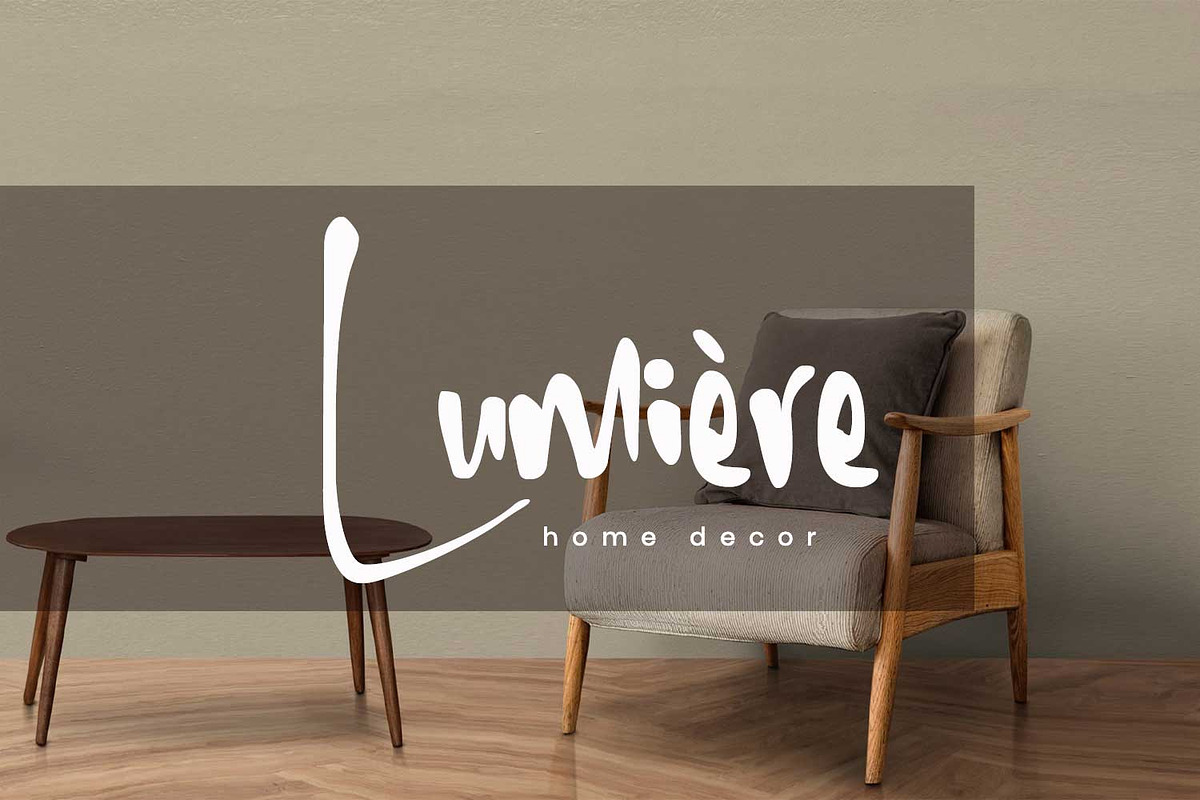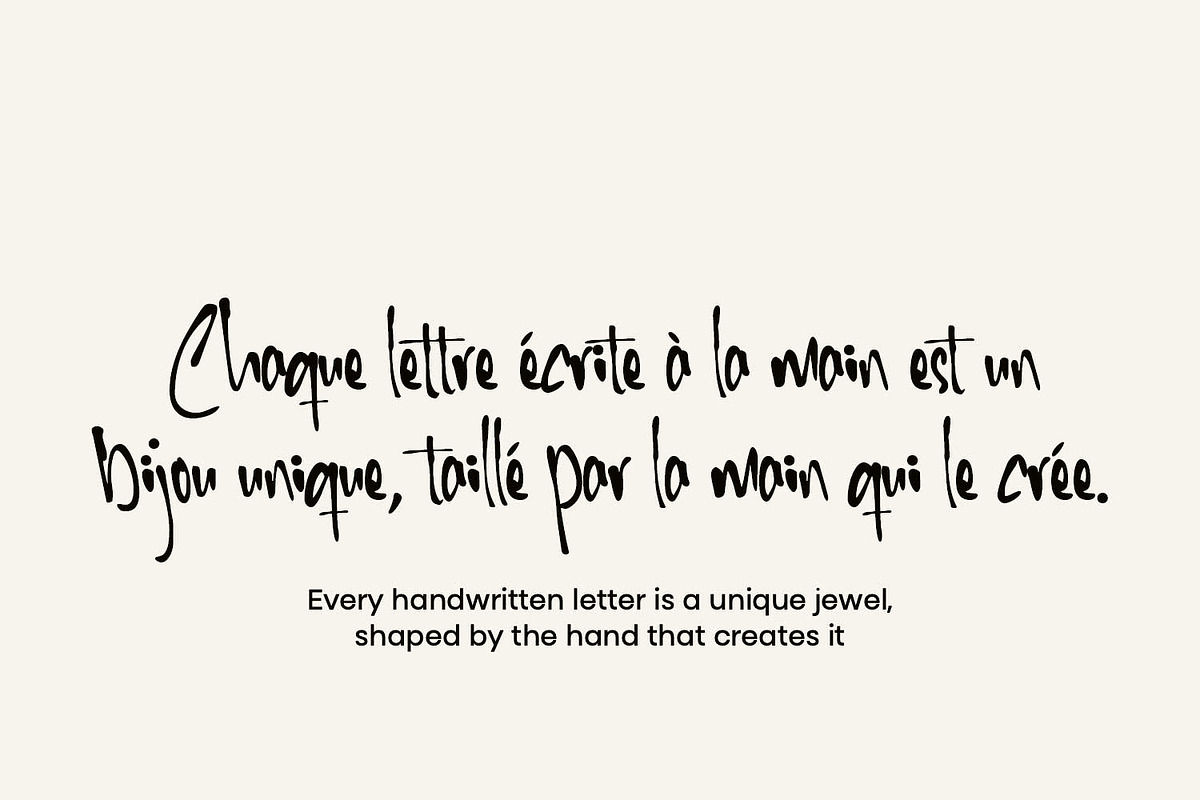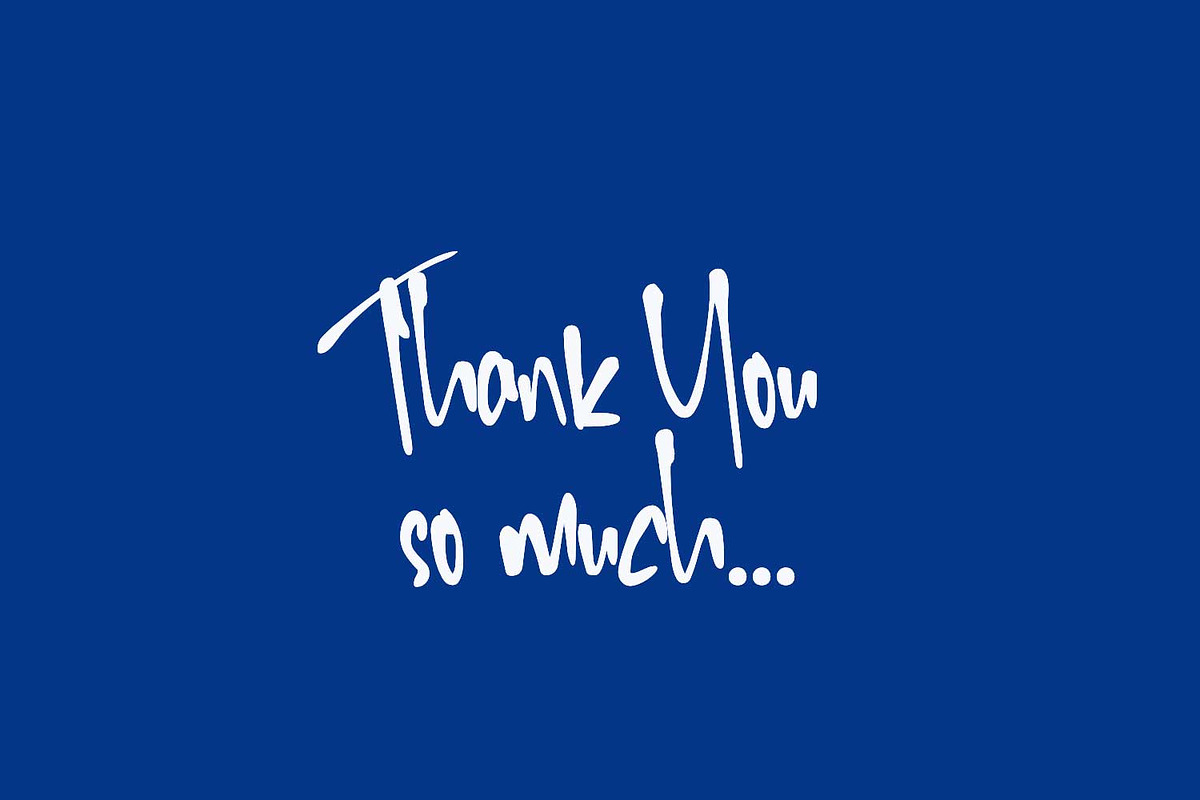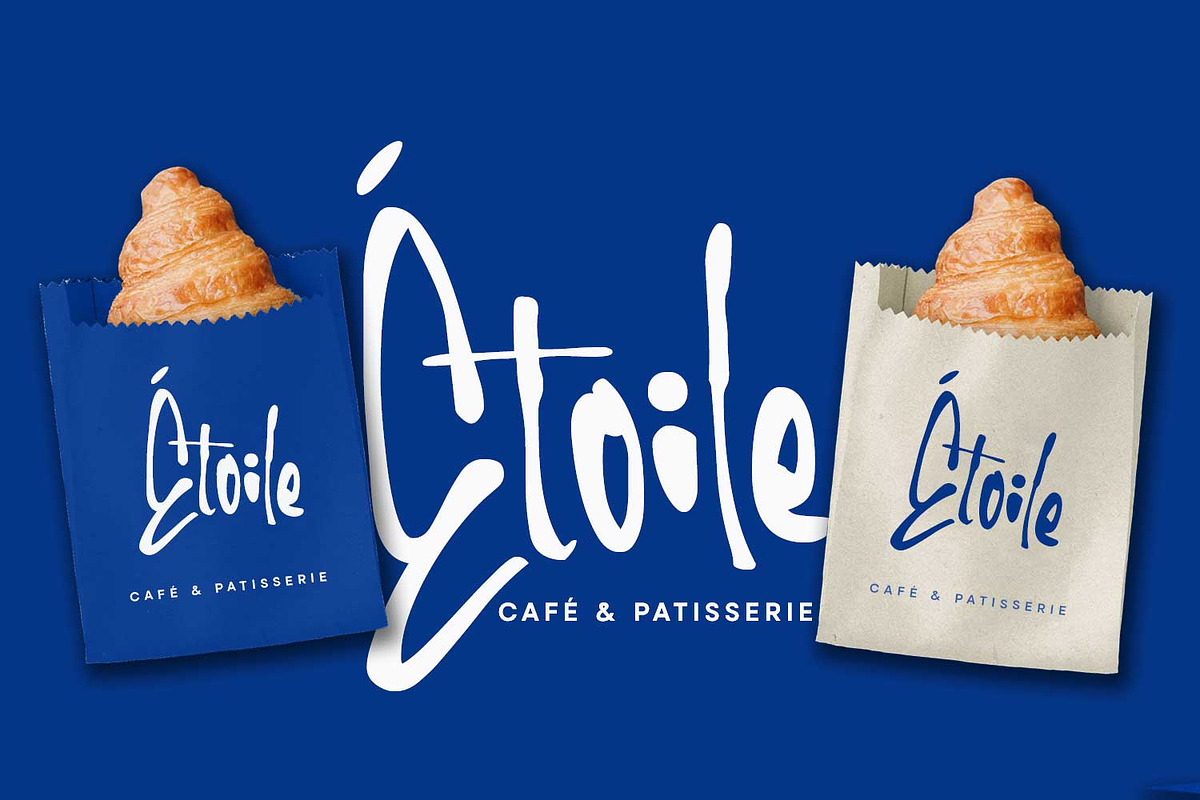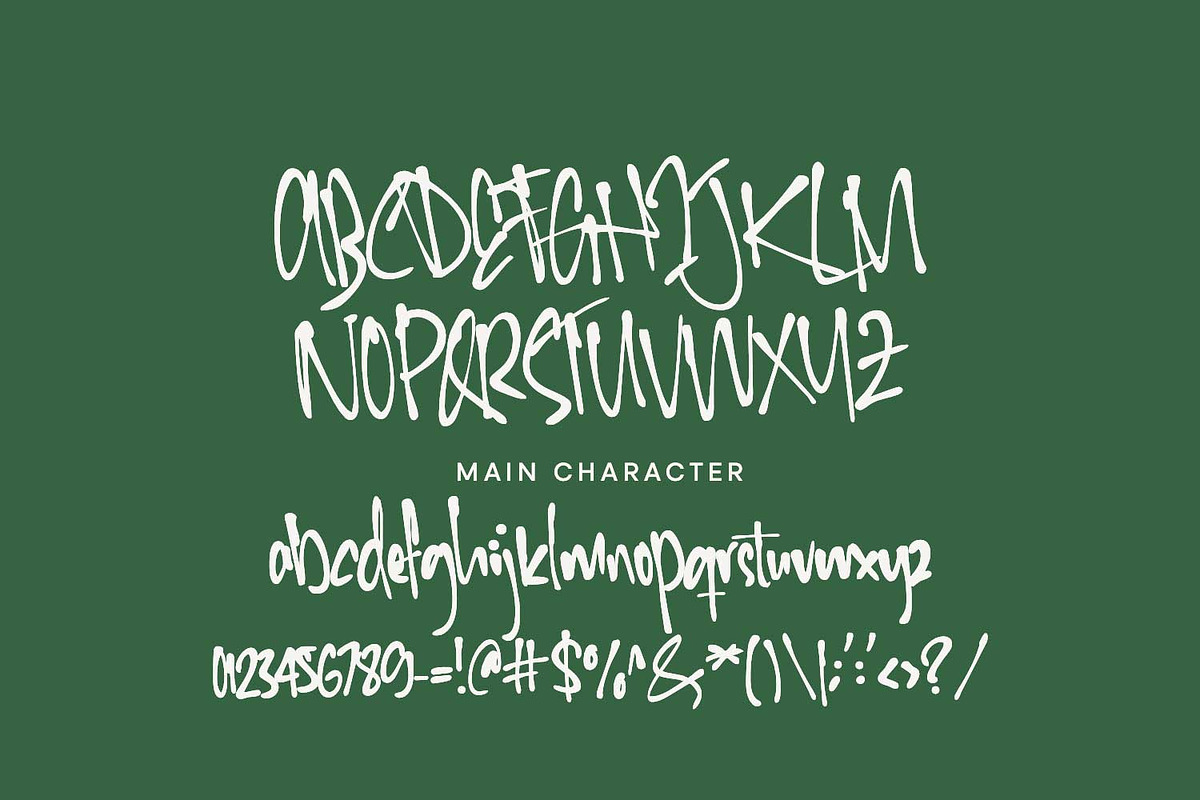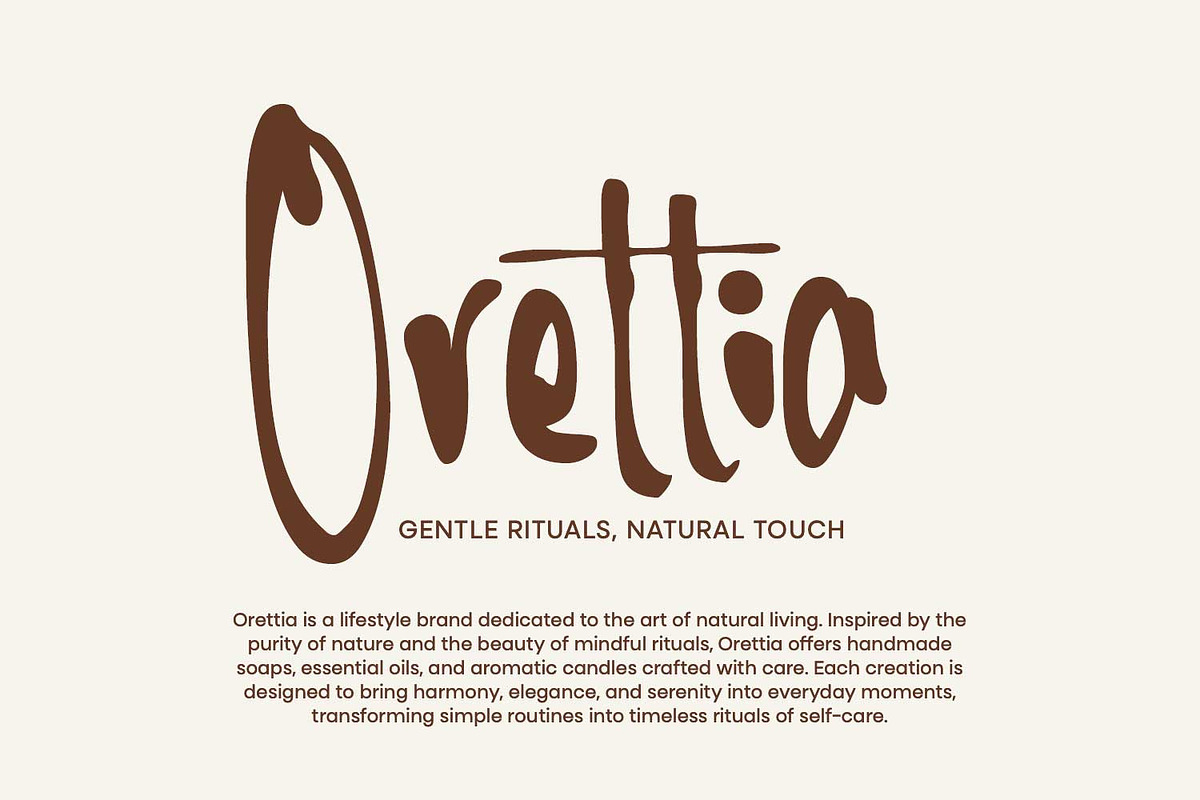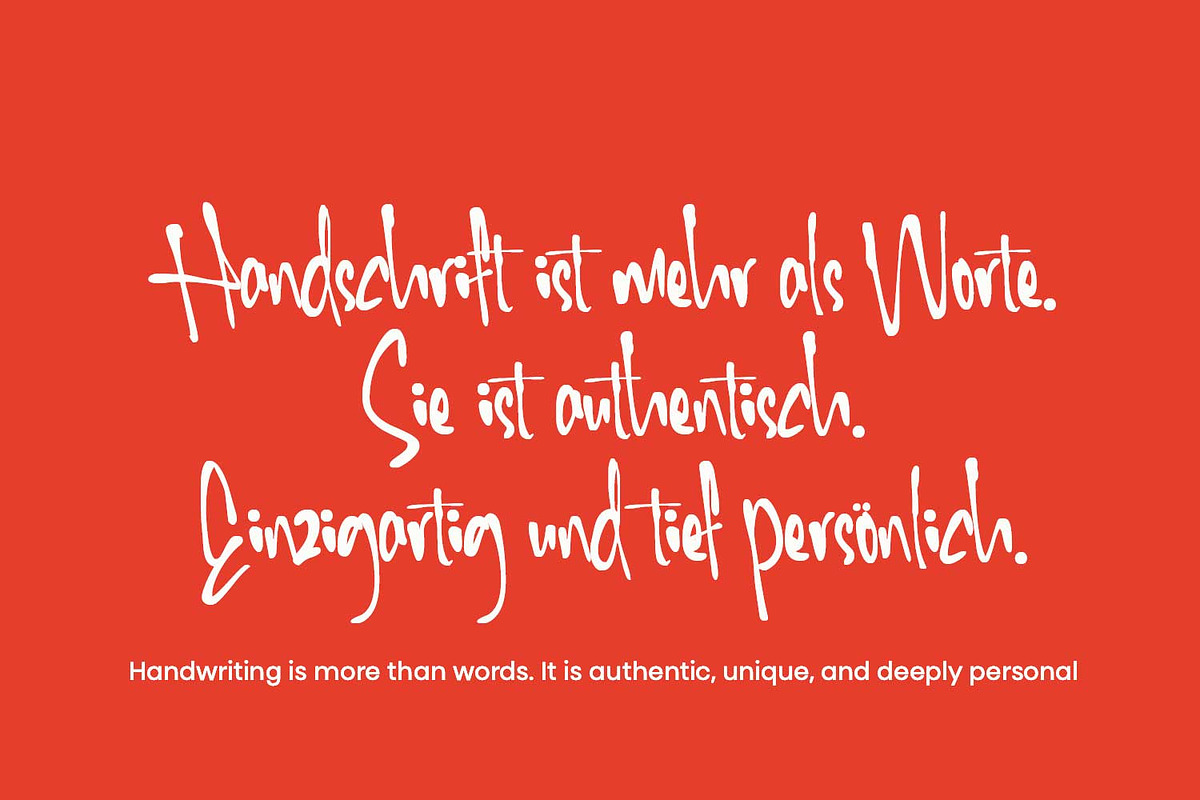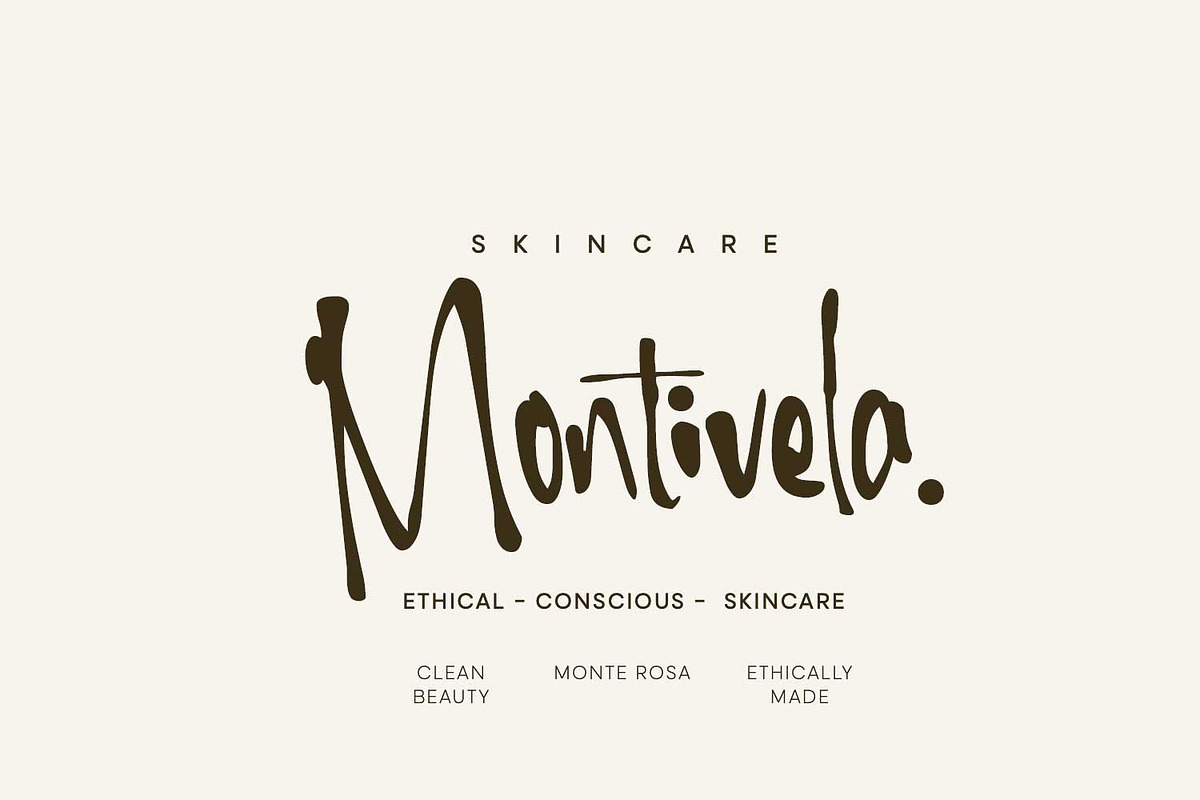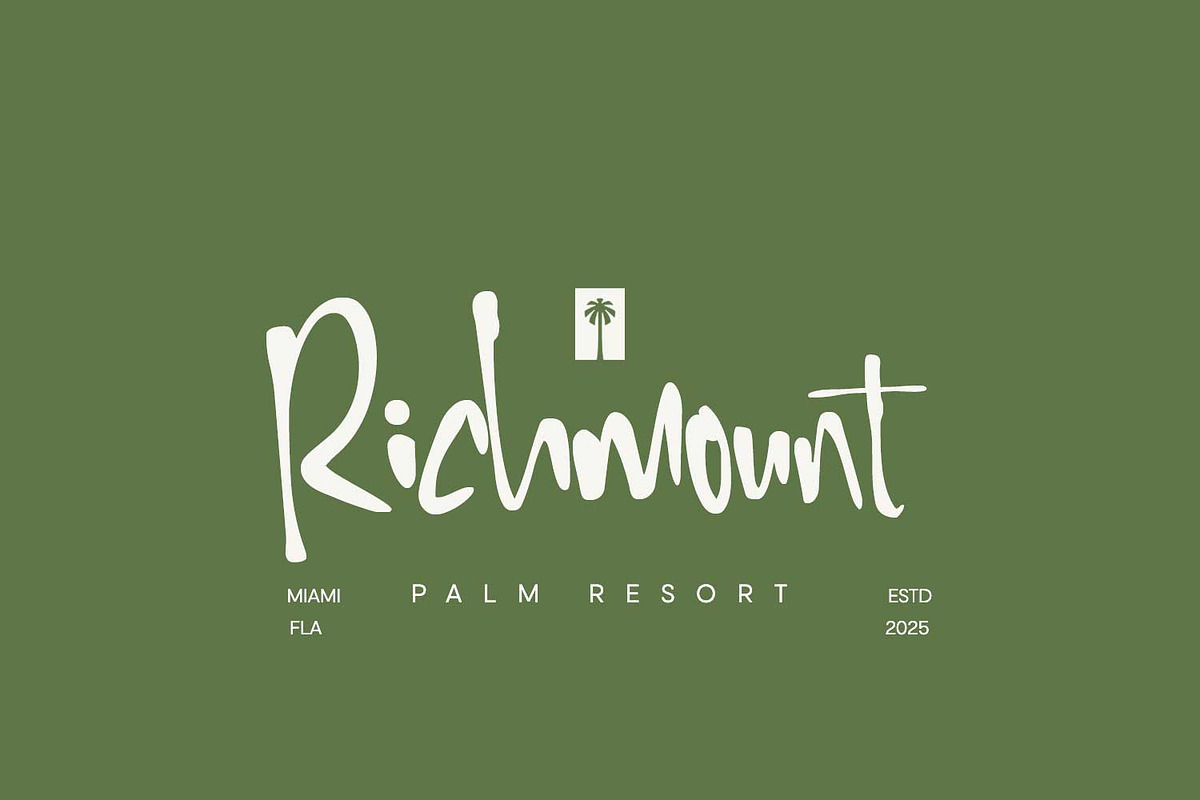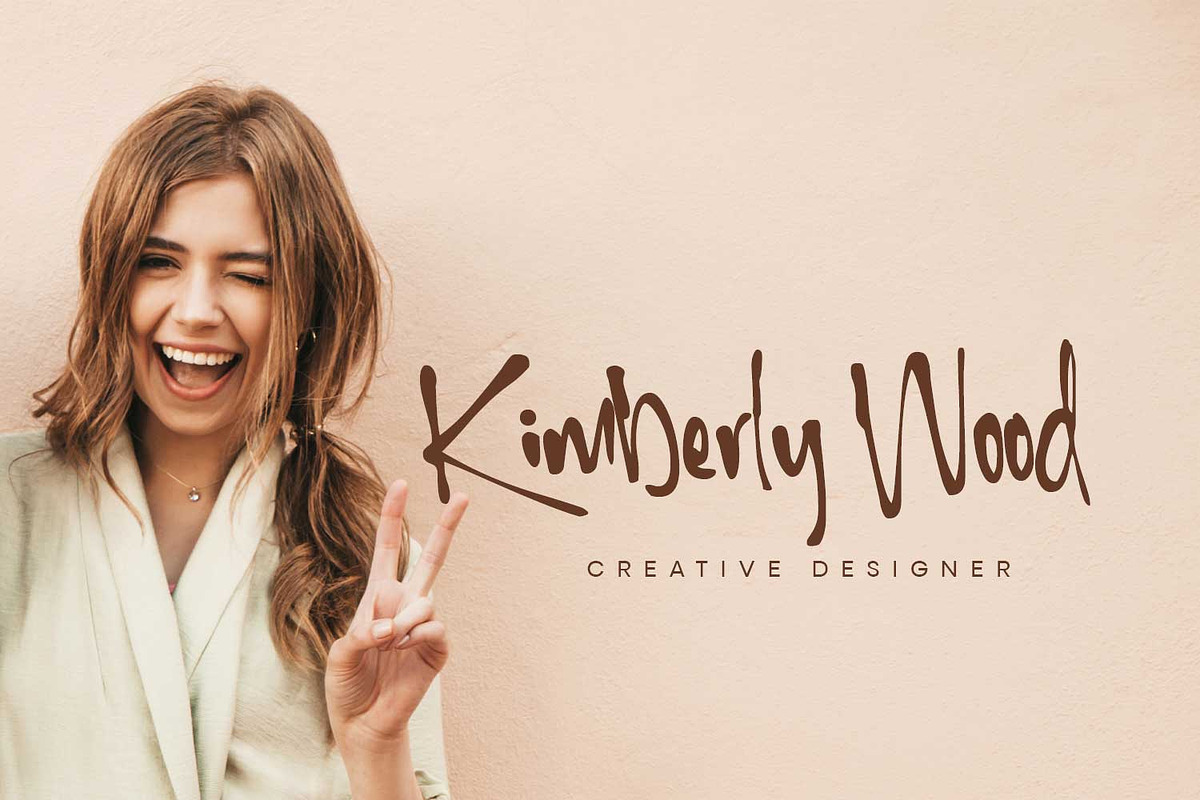
Ambrolite - Expressive handwritten
Expressive handwritten font for bold creative brandingAmbrolite is born from a free hand, with strokes that are never perfectly measured, yet that is where its beauty lies. Every line carries spontaneity, like sketches on paper filled with energy and honesty. The letters flow with an organic rhythm, sometimes wild, sometimes calm, yet always leaving a deeply personal trace. Ambrolite is a celebration of beautiful imperfections, a visual language that brings the human touch into design. This typeface is not only made to write words, but to evoke feelings. It belongs to works that speak of warmth, courage, and authentic expression.